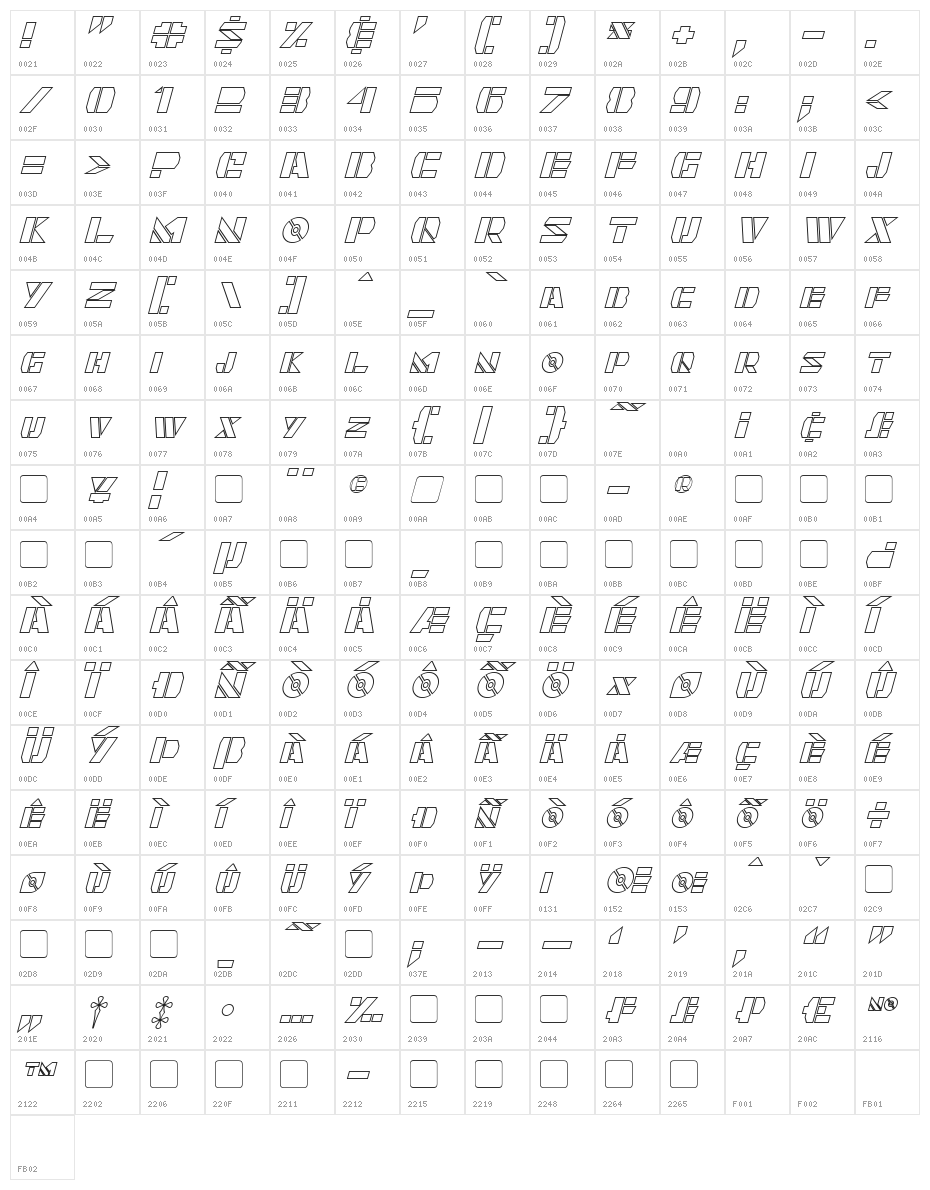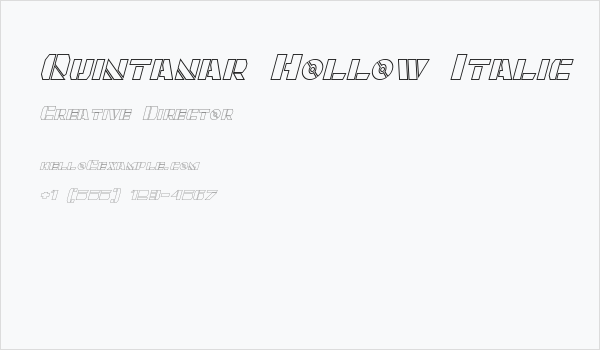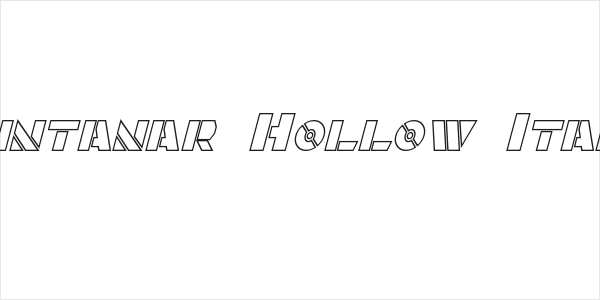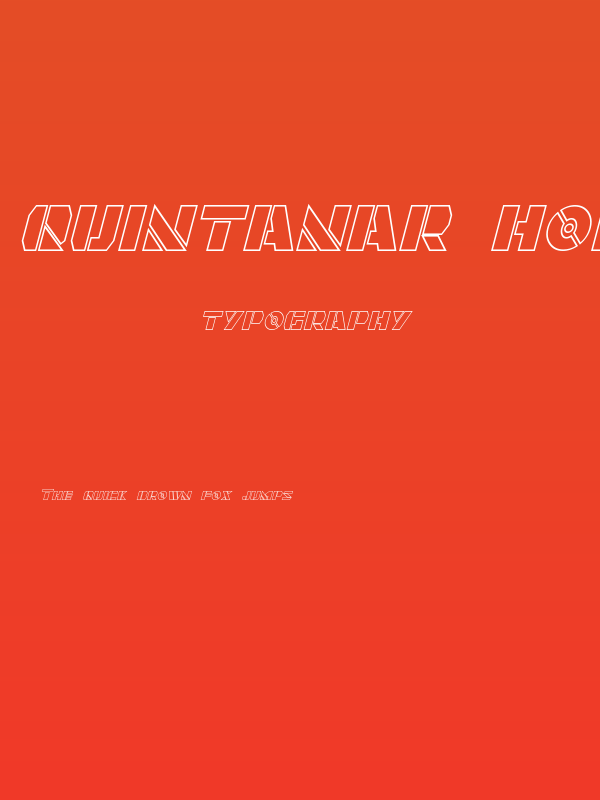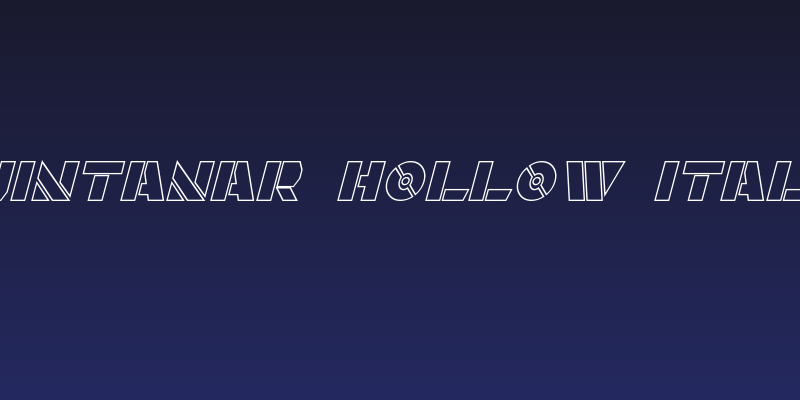
Quintanar Hollow Italic Font
Quintanar Hollow Italic Description
This font is a striking display typeface characterized by its hollow, geometric letterforms. Each character is constructed with angular lines and sharp edges, creating a futuristic and dynamic appearance. The italic slant adds a sense of motion and energy, making it ideal for modern and tech-oriented designs. The uppercase and lowercase letters maintain a consistent style, while the numerals and special characters follow the same geometric pattern. The font's hollow design allows for creative layering and color play, enhancing its visual impact.
| Proposed Projects | Ideal for tech branding, futuristic posters, video game titles, and sci-fi themed projects. |